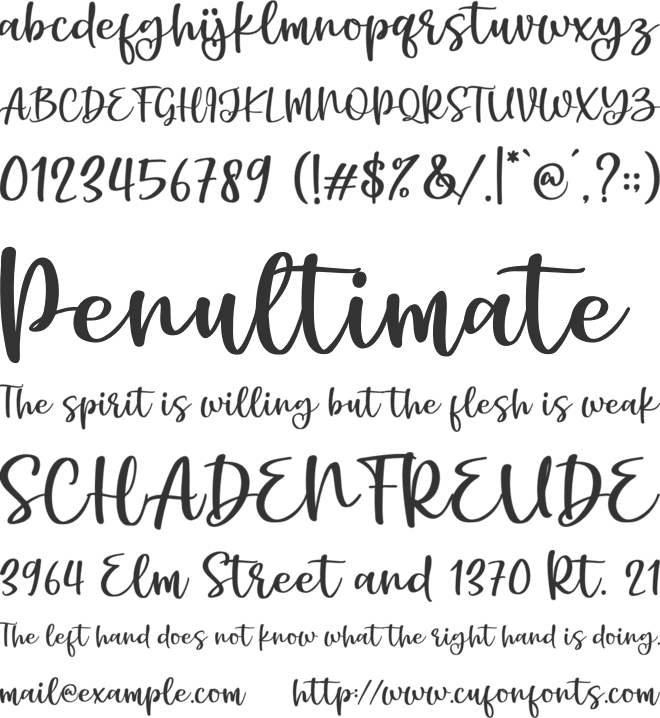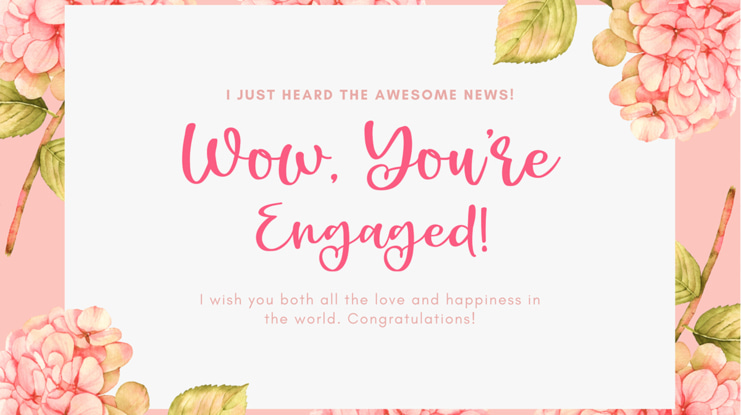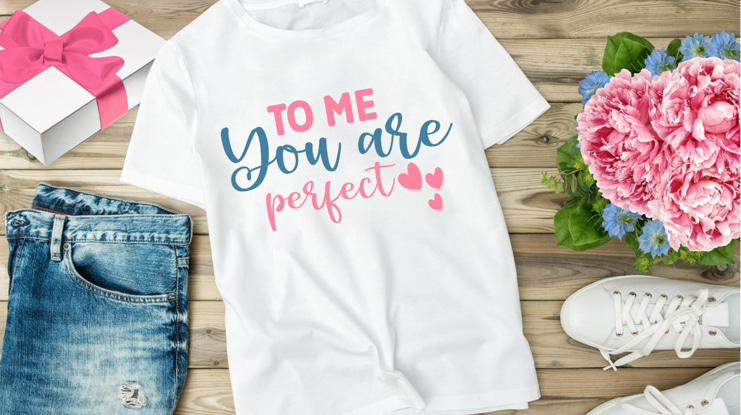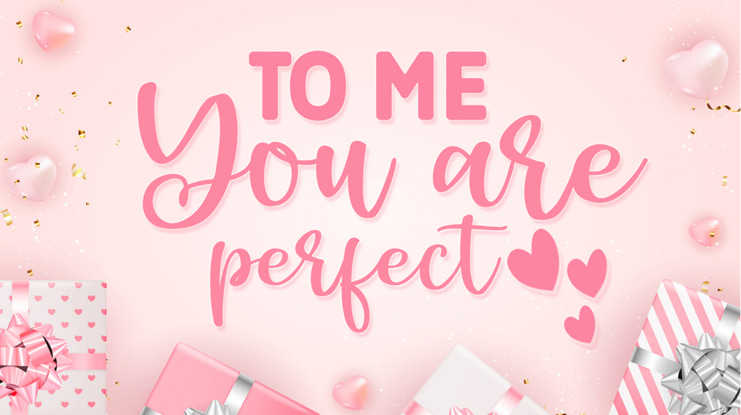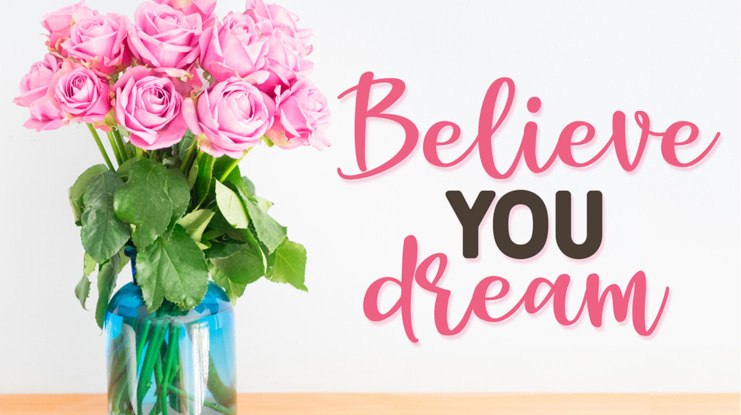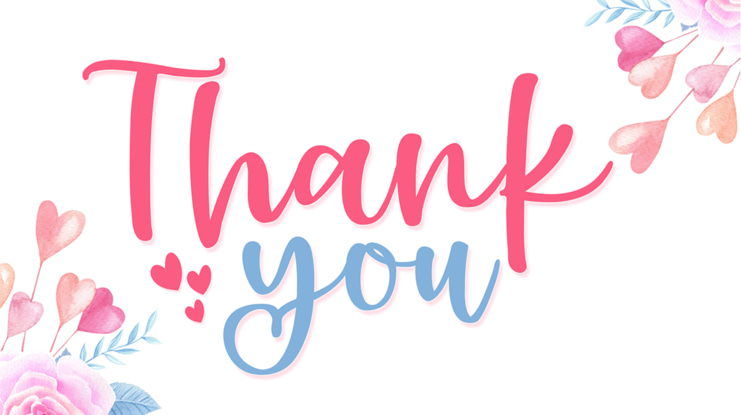
Right Away Font
Right Away is a beautiful and refined script font. It has a classy, elegant and modern look that can be used for logos, branding, invitations, stationery, wedding designs, social media posts, and much more! What is included: . Right Away TTF Enjoy the font, feel free to comment or feedback, send me PM or email. More Freebies https://craftinglia.com/ This font is only for personal use. For Full Version and Commercial use click: https://fontbundles.net/fokira/1755348-right-away-lovely-script-font?ref=hwaP65